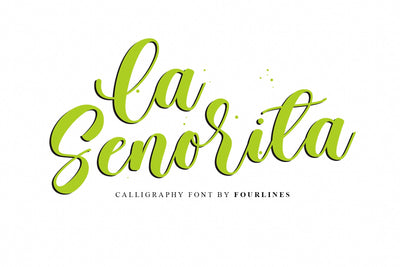
La Senorita
La Senorita is a quirky Calligraphy font. This font will look gorgeous on a variety of design ideas. It will add a joyful and romantic touch to each of your projects!